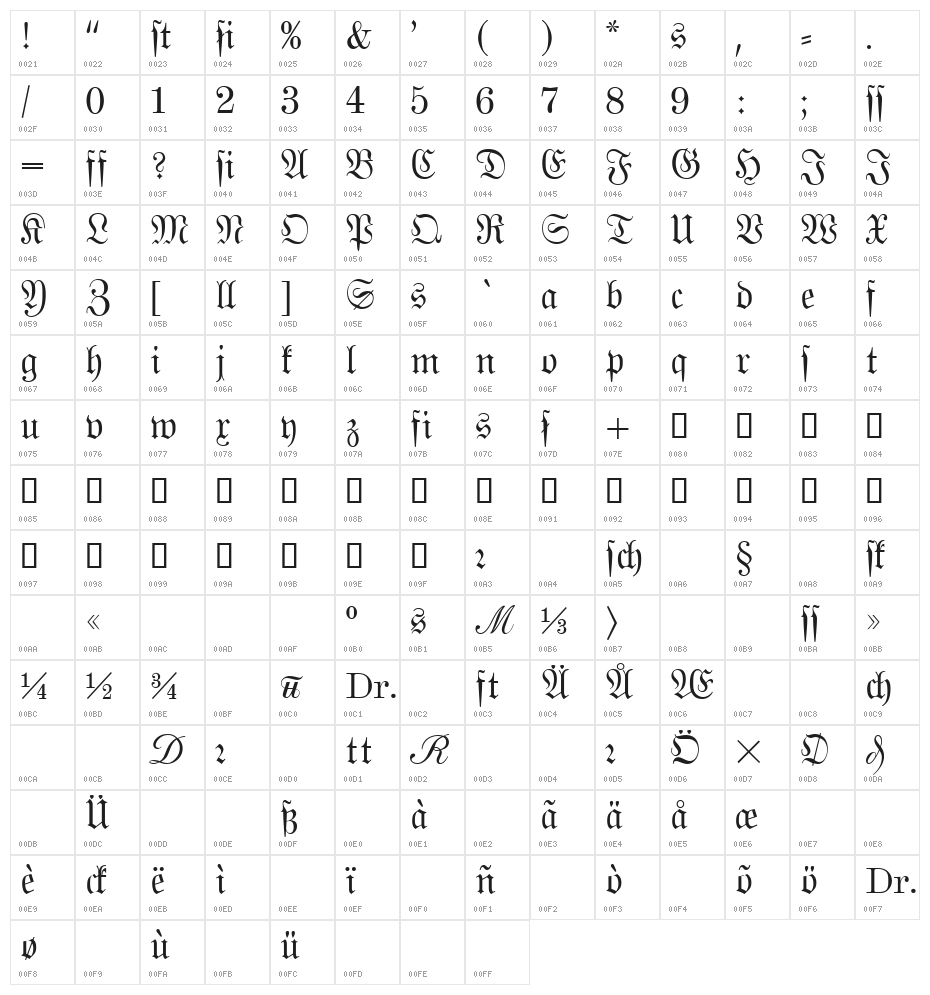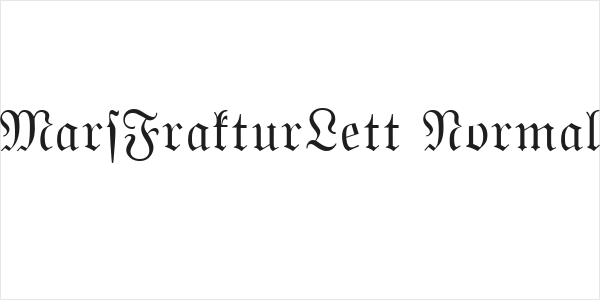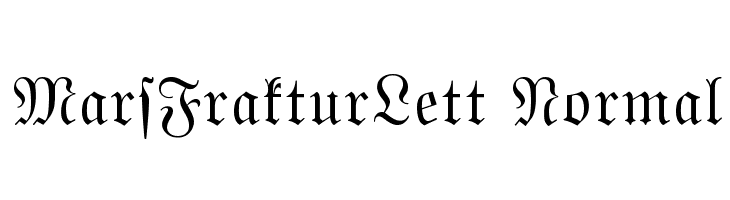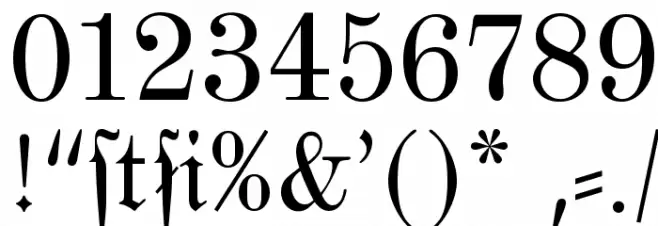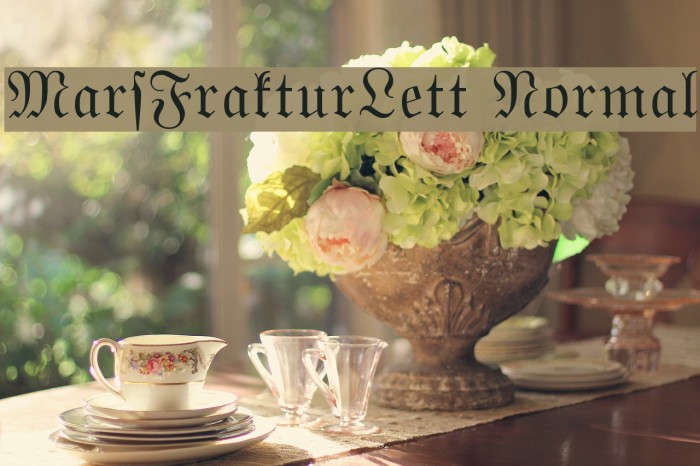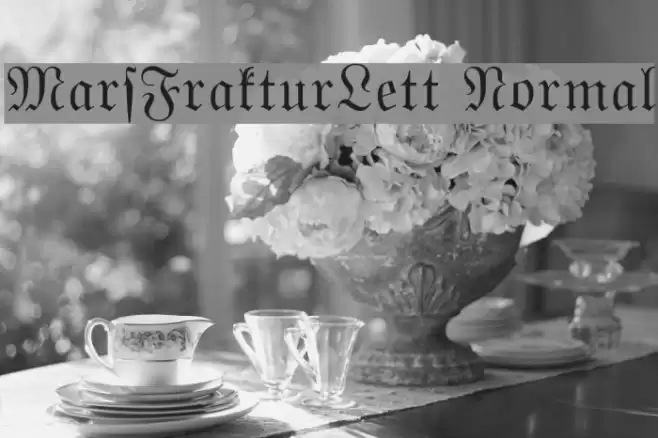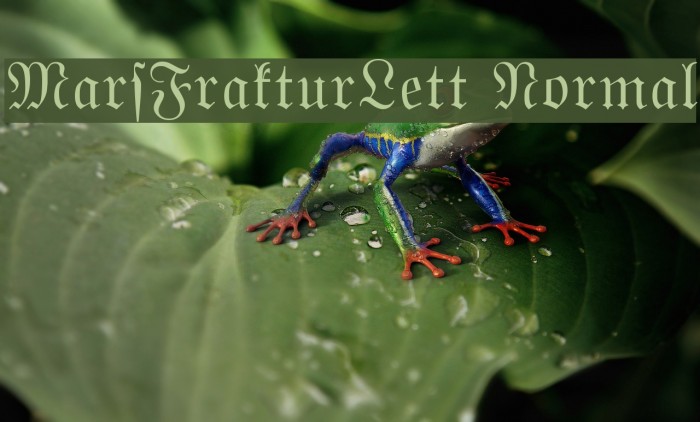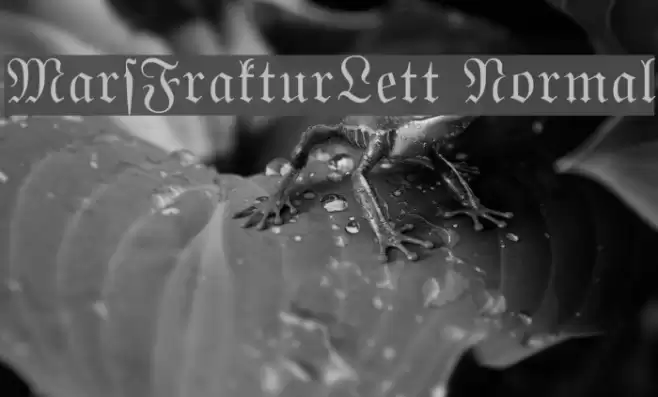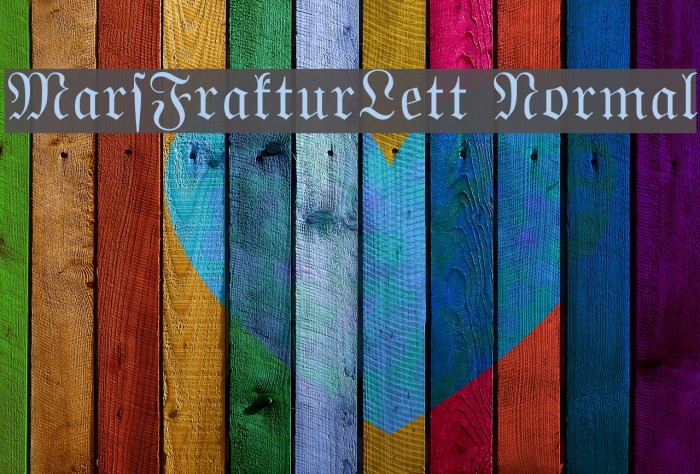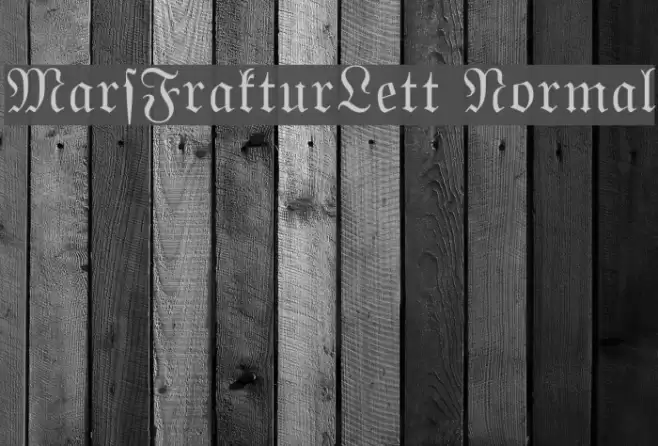
MarsFrakturLett Normal Font
MarsFrakturLett Normal Description
This font features a classic Blackletter style, characterized by its ornate and intricate design. The uppercase letters exhibit sharp, angular lines with elaborate flourishes, while the lowercase letters maintain a consistent medieval aesthetic. The numerals are bold and distinct, complementing the overall gothic appearance. Special characters are designed with similar embellishments, enhancing the font's decorative nature. This typeface evokes a sense of tradition and history, making it suitable for projects that require a touch of elegance and formality.
| Overall Style | Vintage |
| Use Case | Logos, Headlines, Decorative text |
| Proposed Projects | Ideal for historical documents, certificates, wedding invitations, and branding that requires a traditional or medieval touch. |